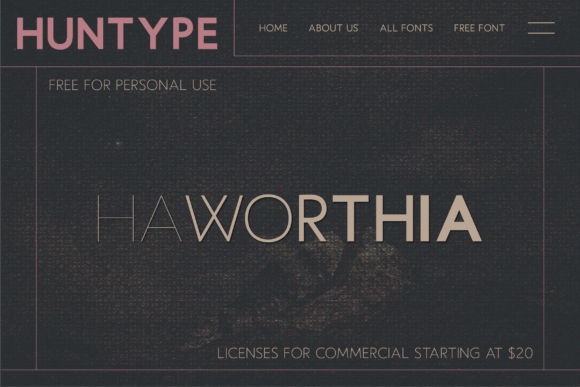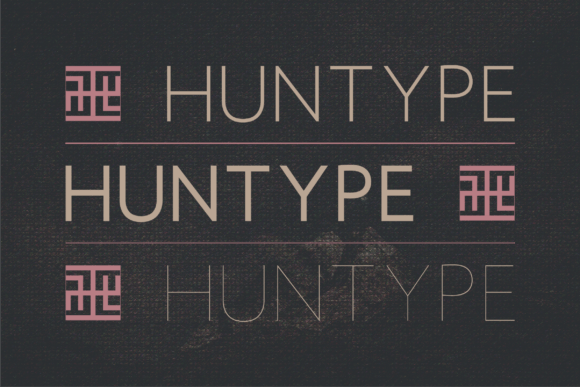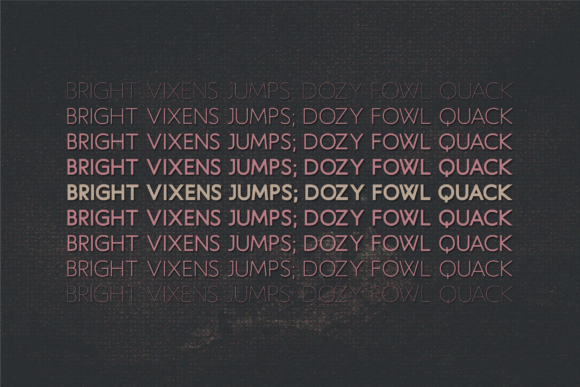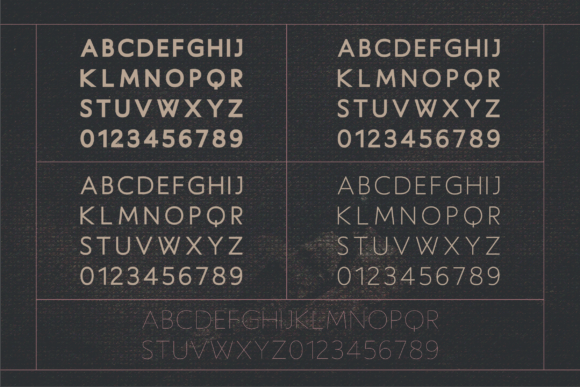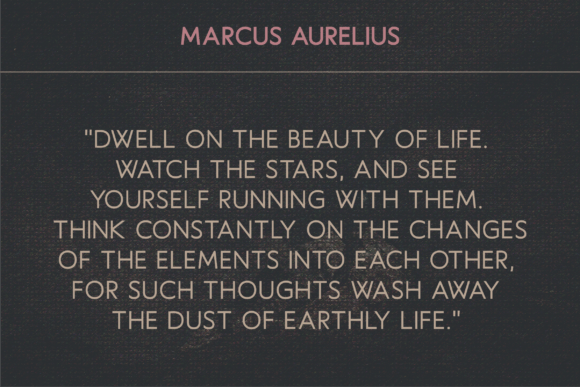
Introducing Haworthia Font: A Modern and Versatile Typeface for Every Design Need
In the world of typography, a font can make all the difference in the success of a design project. With the vast array of typefaces available, finding the perfect blend of style, sophistication, and adaptability can be a daunting task. However, if you’re looking for a font that embodies modernity, versatility, and a touch of elegance, look no further than the Haworthia Font. This comprehensive font family is designed to cater to a wide range of design applications, making it an indispensable tool for designers and crafters alike.
A Blend of Clean Geometry and Subtle Sophistication
Haworthia is a thoughtfully crafted font family that strikes a perfect balance between clean geometric forms and subtle sophistication. Its design is characterized by precise letterforms and a contemporary aesthetic, making it an excellent choice for projects that demand a modern edge. The font’s adaptable style is evident in its sharp lines and gentle curves, a harmonious combination that lends itself to a variety of design applications.
A Family of Five Fonts for Diverse Needs
One of the standout features of the Haworthia Font is its comprehensive family, which includes five distinct fonts: Thin, Light, Regular, Bold, and Black. This range allows designers to choose the perfect weight and style to suit their project’s specific needs, ensuring that their message is conveyed with precision and impact.
- Haworthia Black: Bold and impactful, Haworthia Black is perfect for commanding headlines that demand attention. Its robust design ensures that your message stands out, making it ideal for titles, headings, and key announcements.
- Haworthia Bold: Strong and persuasive, Haworthia Bold is designed for key messages that require emphasis. Its assertive style makes it suitable for a wide range of applications, from advertising to editorial design.
- Haworthia Regular: A balanced and versatile mid-weight, Haworthia Regular is the go-to font for diverse applications. Its legibility and clarity make it perfect for body text, articles, and general design projects where a neutral yet refined look is desired.
- Haworthia Light: Subtle and elegant, Haworthia Light is ideal for refined designs that require a touch of sophistication. Its understated style ensures that your message is conveyed with elegance and poise, making it suitable for luxury brands, high-end products, and editorial content.
- Haworthia Thin: Delicate and sophisticated, Haworthia Thin adds a minimalist touch to any design. Its sleek design makes it perfect for projects where a subtle aesthetic is required, such as in fashion, art, and high-end editorial content.
Why Choose Haworthia Font?
With so many fonts available, why should designers and crafters choose Haworthia? Here are a few compelling reasons:
- Versatility: The Haworthia Font family offers a range of styles to suit various design needs, making it a versatile tool for any project.
- Legibility: Each font in the Haworthia family is designed with legibility in mind, ensuring that your message is conveyed clearly and effectively.
- Modern Aesthetic: Haworthia’s contemporary design ensures that your project looks modern and fresh, perfect for brands and designers looking to make a statement.
- Elegance: The subtle sophistication of Haworthia adds an touch of elegance to any design, making it suitable for high-end projects and luxury brands.
In conclusion, the Haworthia Font is a modern and versatile typeface that offers a unique blend of clean geometric forms and subtle sophistication. With its comprehensive family of five fonts, it’s an excellent choice for designers and crafters looking for a reliable and stylish solution for their design projects. Whether you’re working on a bold headline, a refined editorial piece, or a minimalist design, Haworthia has got you covered. Its adaptability, legibility, and modern aesthetic make it an indispensable tool for anyone looking to elevate their design work.